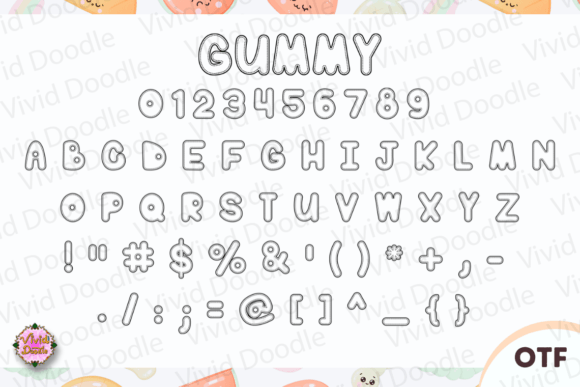
Gummy Font
Satisfy your creative cravings with Gummy — a playful typeface where every letter and character takes on the delightful appearance of jelly candies, perfect for Valentine’s Day, holidays, and all your sweet-themed creative art projects. Each character is crafted with a whimsical touch, reminiscent of your favorite gummy treats. Whether it’s Valentine’s Day cards, festive decorations, or any culinary-inspired endeavor, this font seamlessly blends sugary aesthetics with creative flair. Elevate your artwork with the sweet charm of Gummy font, inviting your audience to savor the fun and creativity embodied in every letter and character. Transform your designs into a delectable celebration with this uniquely captivating and confectionery-inspired typeface!